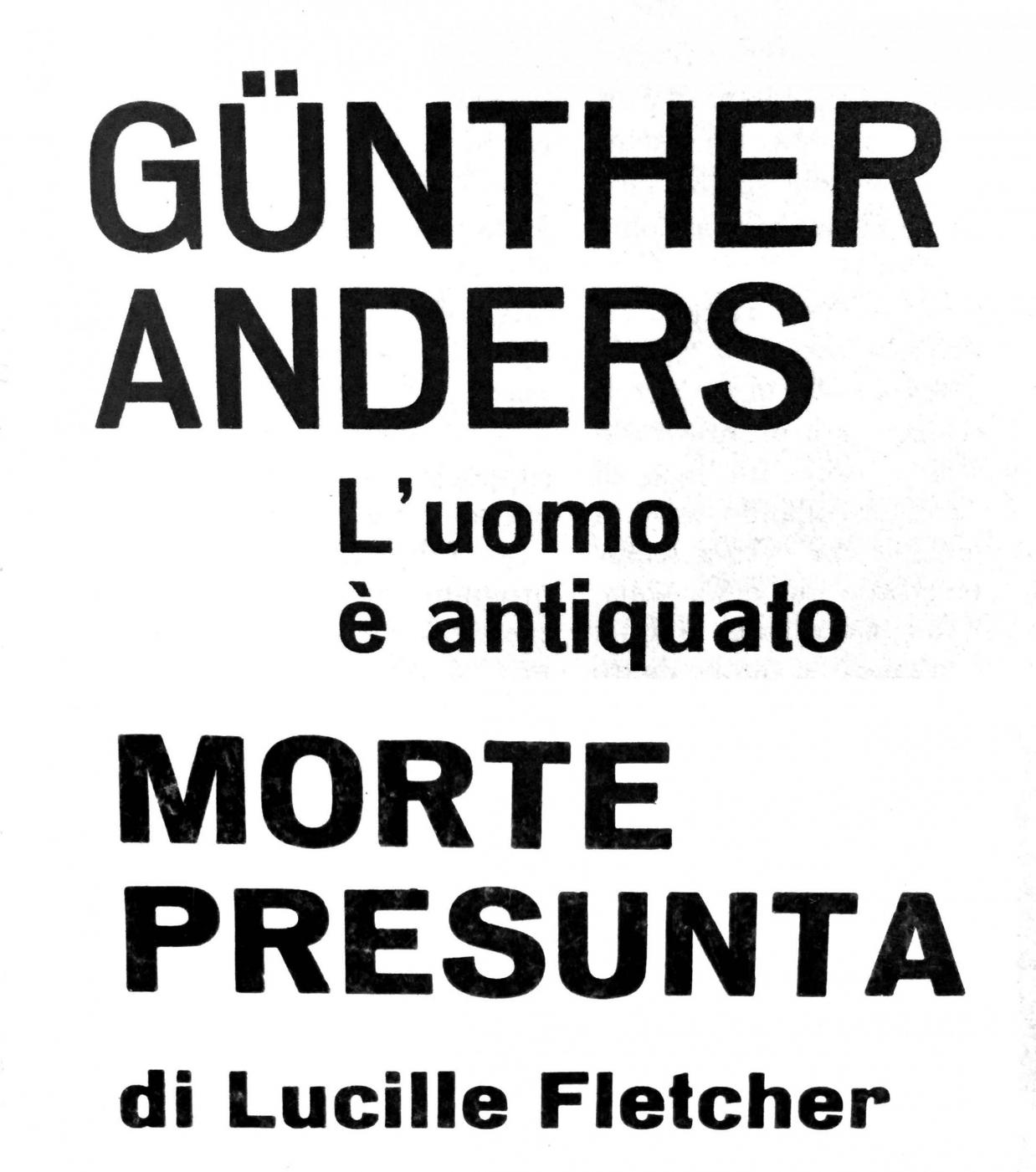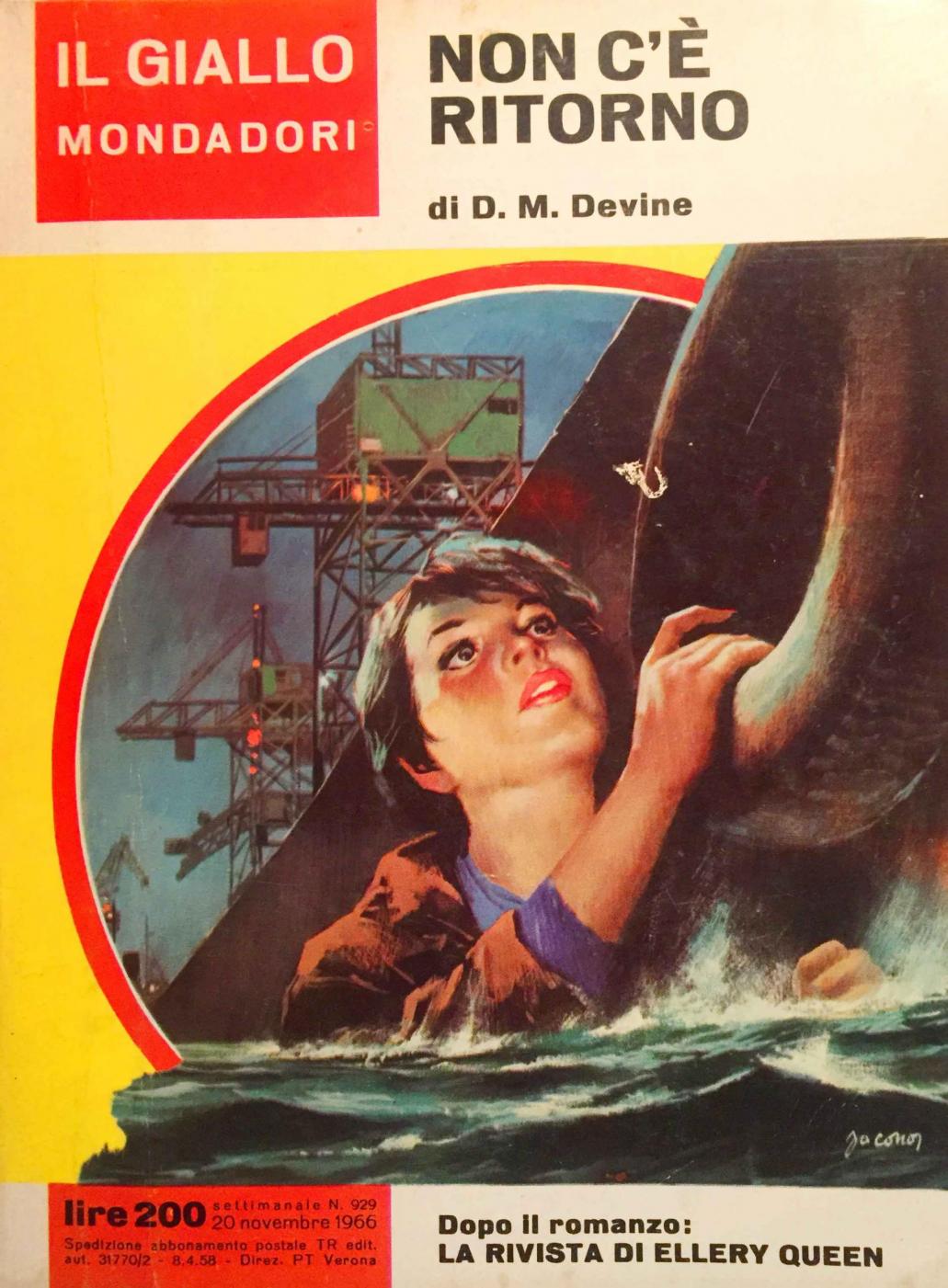
Gialli Mondadori Titles Font
i found this font on covers and interior pages of gialli mondadori, a crime and investigations book series from the 60s.
it seems close to franklin, but it isn't (uppercase O and D are different, for instance, and much more rectangular shaped). also it is similar to the very recent woolworth , which was released in 2014, so it isn't it.
it probably comes from some wood type specimen, but i've no precise idea and i'm very curious. thanks a lot for any help you can give me.
Solved by Gecko
It looks like "Aurora Grotesk" a very old typeface from the early 1920's
thank you, it really seems to be what you suggest…
I have a old Berthold catalogue of typefaces from 1982 just before the digital explosion. One of the books I would rush into my house to rescue if my home was burning down. It tells a very short story on every page about a fox that jumped over a lazy dog.
Before digital typeface my samples in the Berthold Catalogue have squarish O and D in fact the type has a similar feel to the typeface "DIN" in many instances. However I just had a look at the modern digital versions and they all seem to have gone for a more circular O and D. I think the more modern Woolworth is closer to the original Aurora Grotesk.